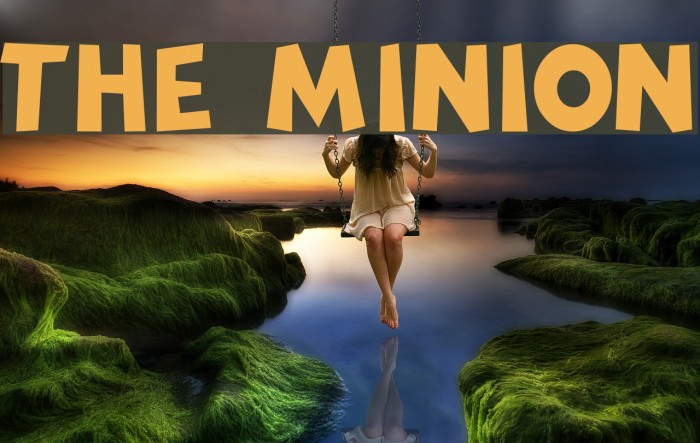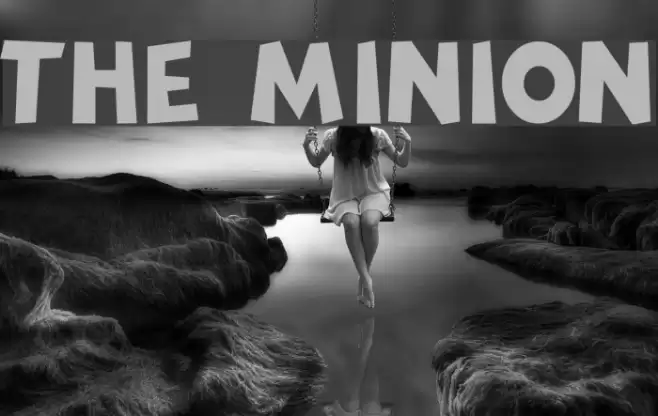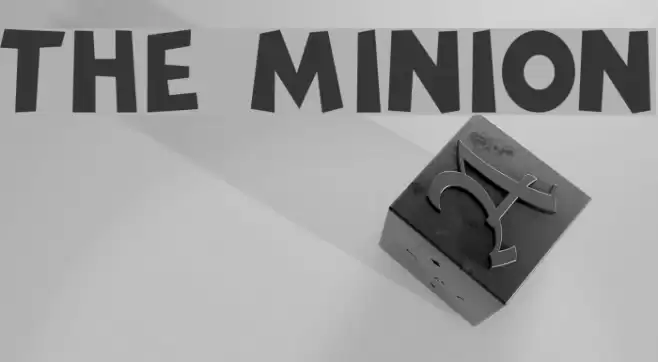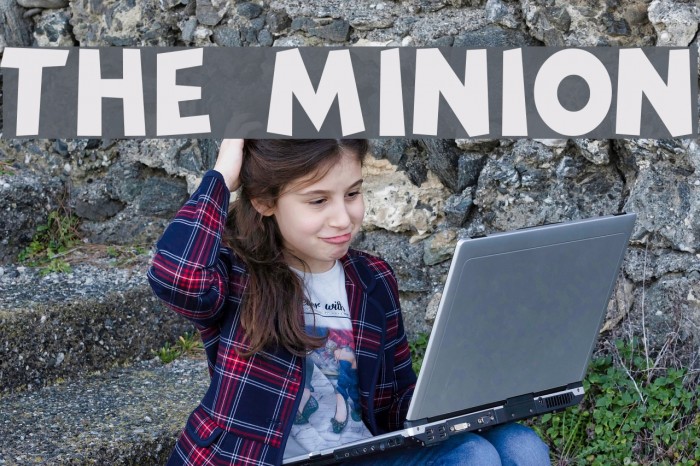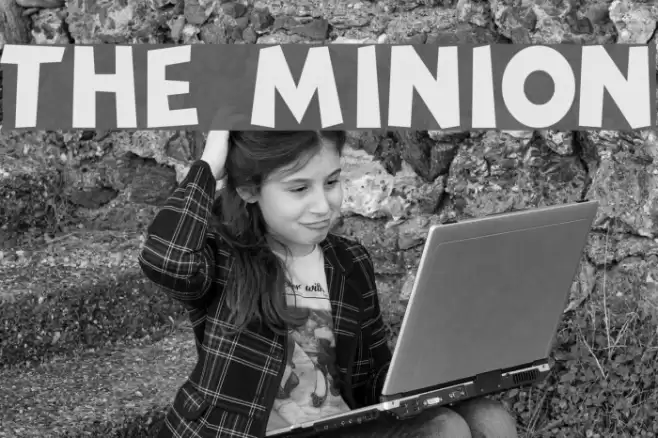
THE MINION Font
THE MINION Description
This font features bold, playful characters with a slightly irregular and whimsical design. The uppercase letters are robust and slightly tilted, giving a dynamic and energetic feel. The lowercase letters maintain the same playful style, with rounded edges and a consistent weight throughout. The numbers and special characters follow the same design principles, ensuring a cohesive look across all glyphs. The font's style is reminiscent of comic or cartoon aesthetics, making it ideal for projects that require a fun and engaging appearance.
| Overall Style | Playful, Cartoon-like |
| Proposed Projects | Ideal for children's books, comic strips, playful branding, and any project needing a fun, engaging typeface. |